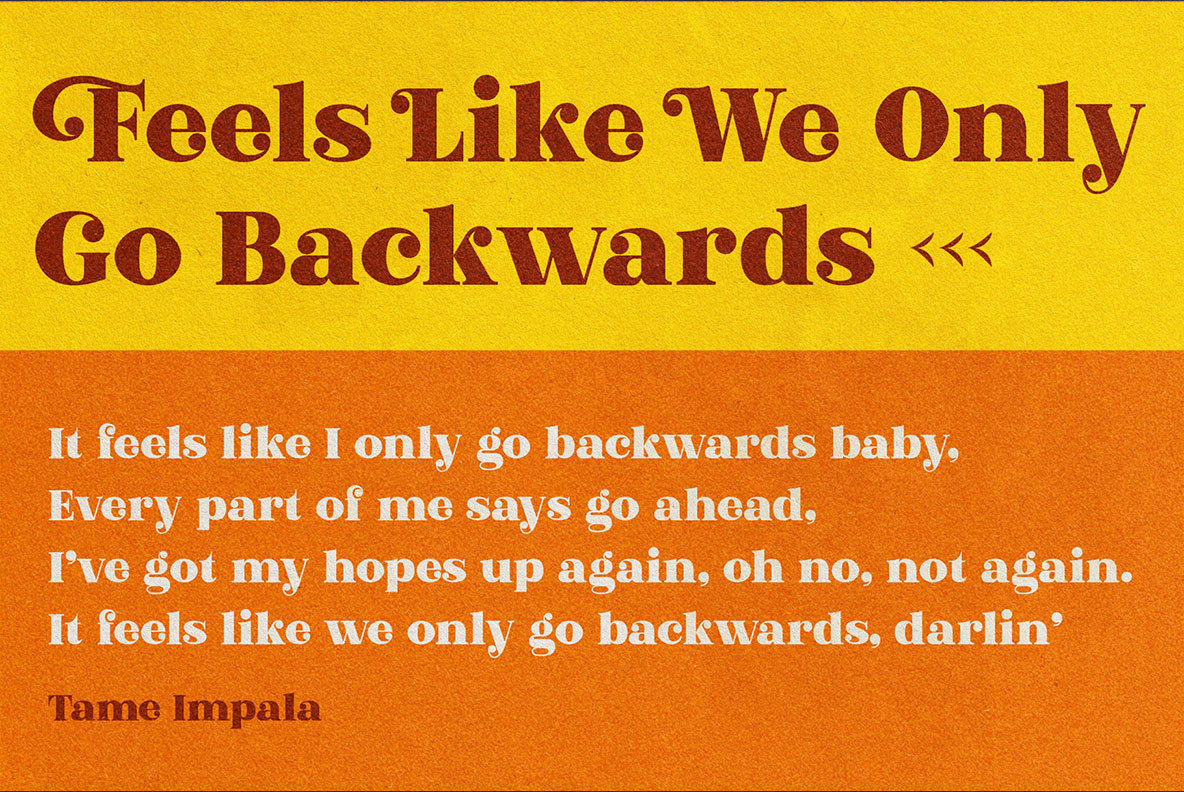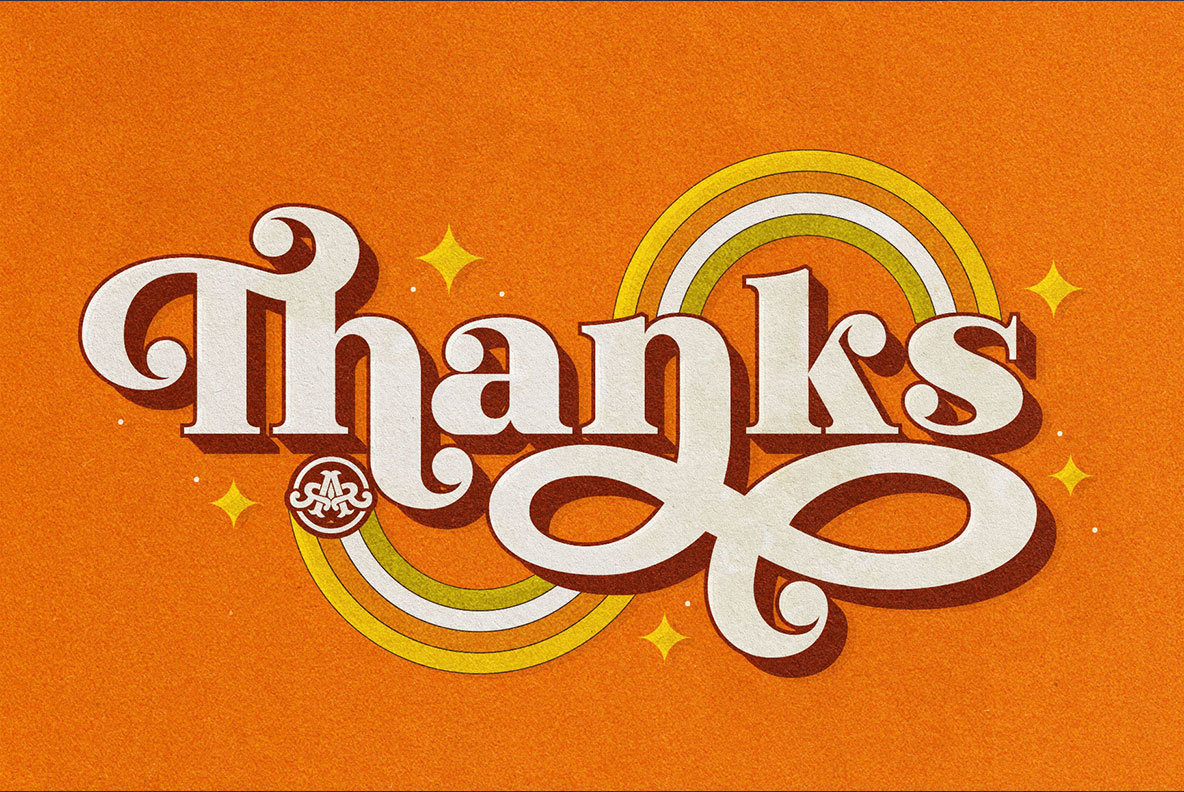
The Beardy Font
The Beardy Pro Display
The Beardy is an elegant retro display typeface that seamlessly blends the classic charm of serif Didone with the vibrancy of 60s and 70s pop culture. Designed for the discerning creative, The Beardy typeface offers a nod to the past while maintaining a modern sensibility, making it an ideal choice for various design projects.The Beardy: Retro Elegance for Distinctive Designs
Versatile Design Applications